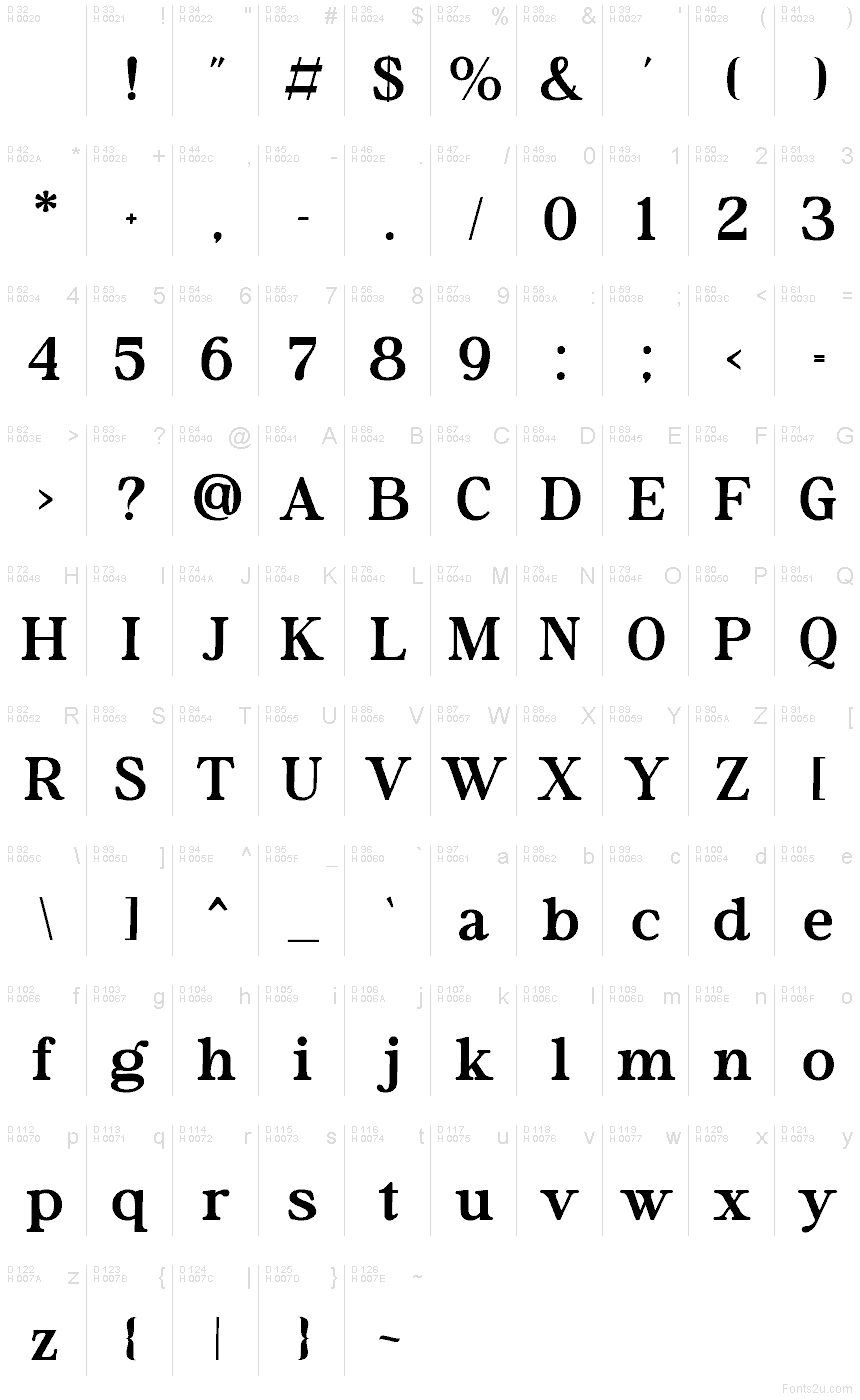
Bigest hopefully Regular
Bigest Hopefully font by Fahmi Imanulah of Spectype is a free serif typeface that leans into lush, inky curves and sturdy slabby feet. Letters feel hand-pressed yet refined—thick strokes settle with a soft weight, while rounded terminals add a warm, bookish glow. The rhythm is compact and confident, giving titles a solid spine without turning stiff.
Using Bigest Hopefully, you get a serif that shines on editorial headlines, boutique branding, artisanal packaging, posters, café menus, and literary event graphics. Its dense color holds up at larger sizes and keeps shorter copy looking rich and intentional. This free font pairs naturally with a crisp geometric sans for body text; keep the serif big and the sans smaller for balance.